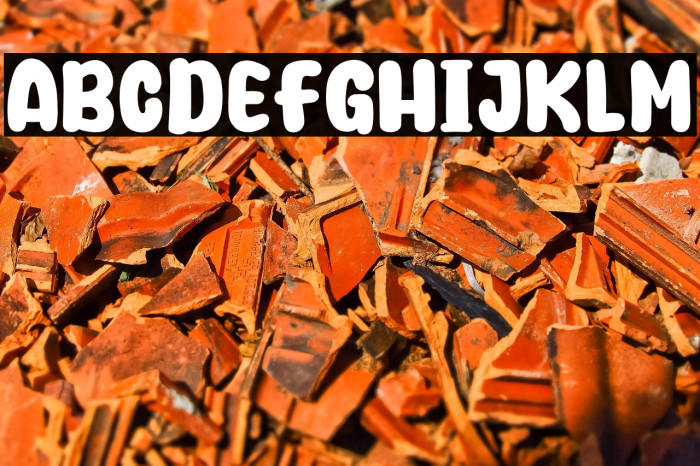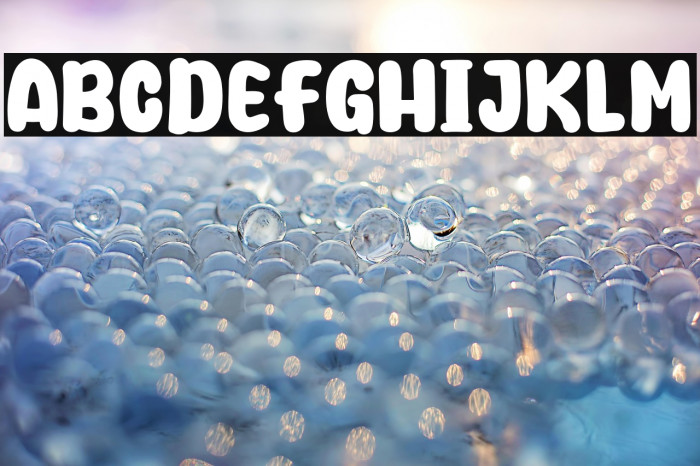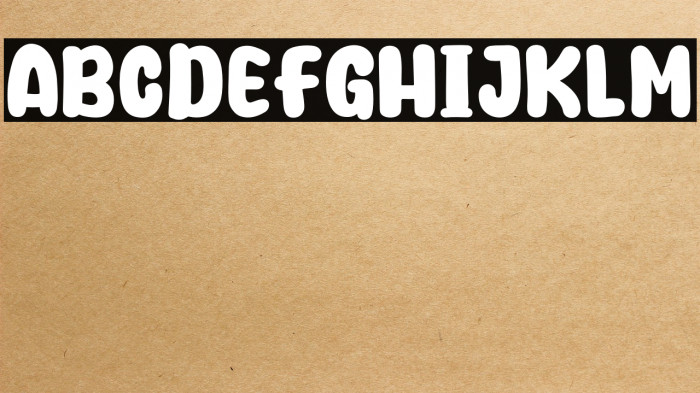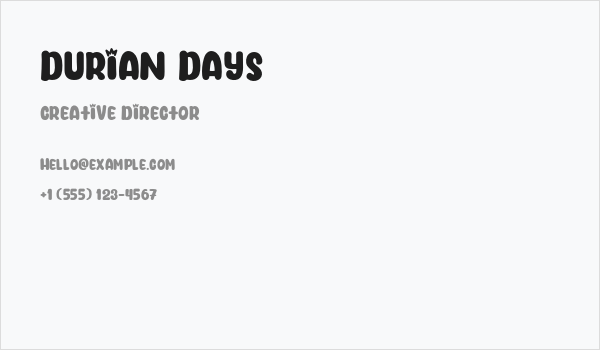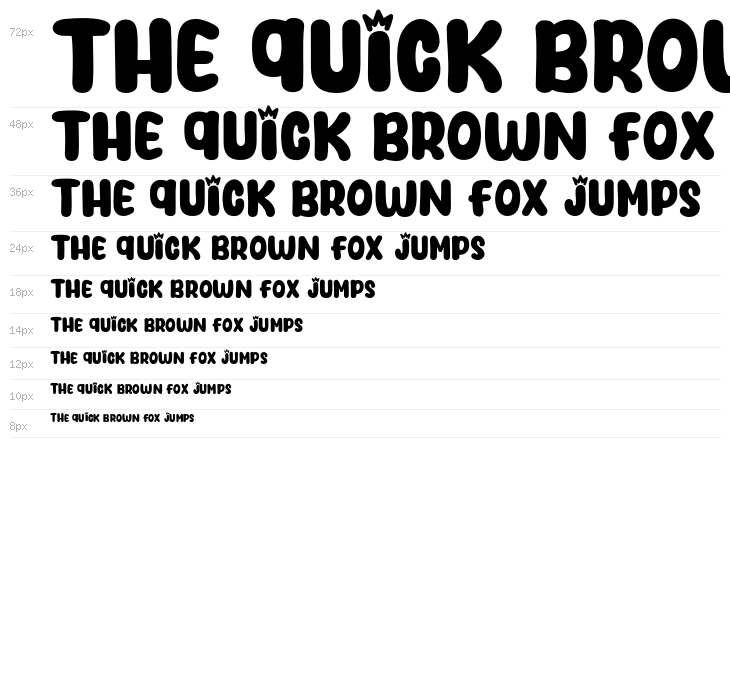
Durian Days Font
Durian Days Description
This playful and bold font features rounded, thick strokes that give it a friendly and approachable appearance. The characters are uniformly wide, with a consistent stroke weight that adds to its boldness. The uppercase and lowercase letters maintain a similar style, enhancing readability while retaining a whimsical charm. The numbers and special characters are designed to match the overall style, making it versatile for various uses. Its unique character shapes, such as the crowned 'i' and 'j', add a touch of creativity and fun.
| Proposed Projects | Ideal for children's books, playful branding, posters, and any project requiring a fun and approachable typeface. |